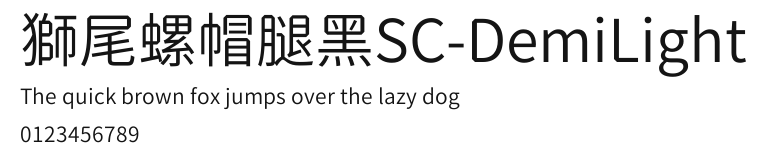
獅尾螺帽腿黑SC-DemiLight Preview
• Font Name: 獅尾螺帽腿黑SC-DemiLight
• Font Style: DemiLight
• Full Font Name: 獅尾螺帽腿黑SC-DemiLight
About 獅尾螺帽腿黑SC-DemiLight.ttf
獅尾螺帽腿黑SC-DemiLight.ttf is a modern, elegant sans-serif font designed for ultimate readability and visual harmony. Perfect for branding, headlines, web design, and print materials.